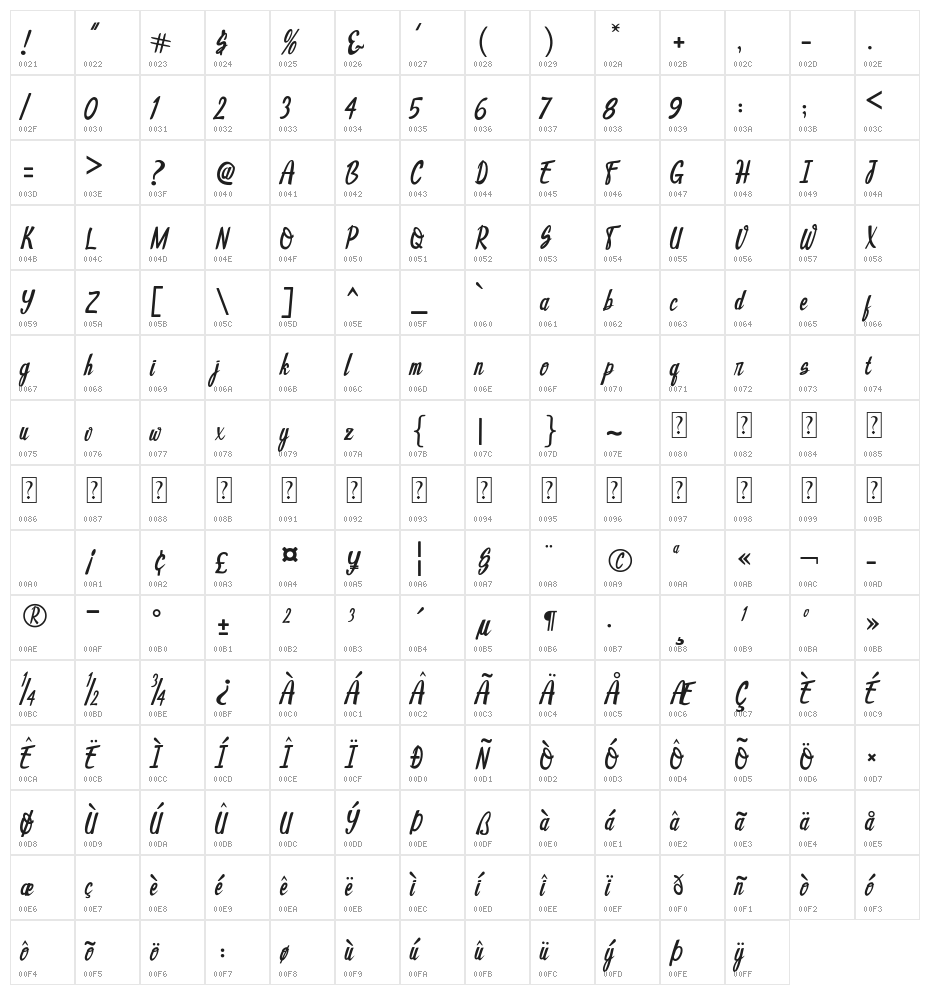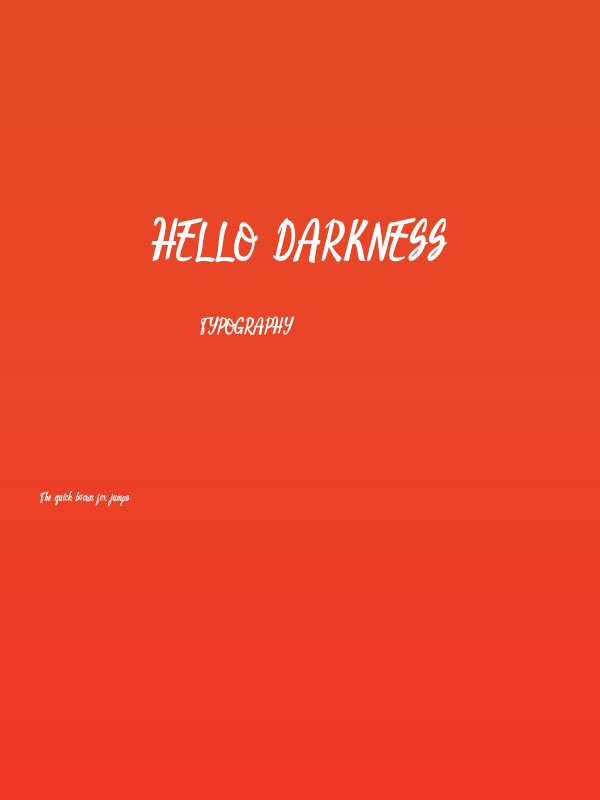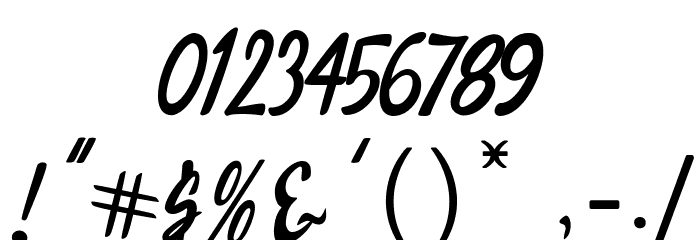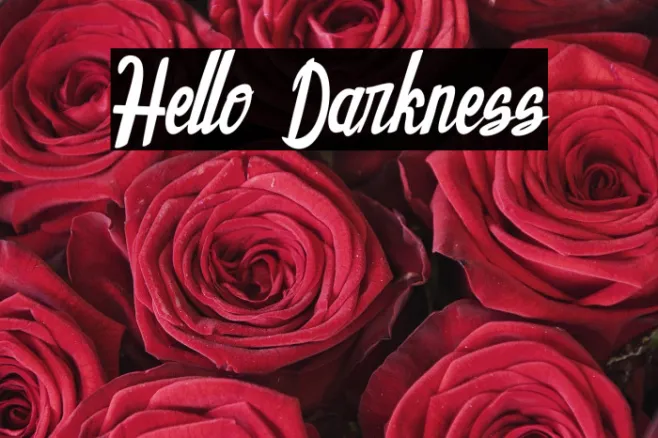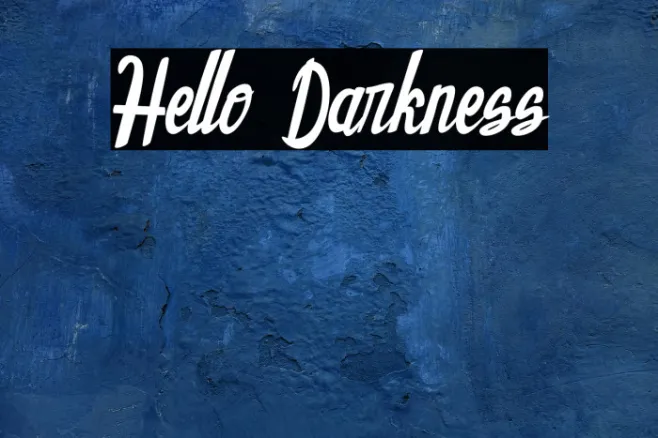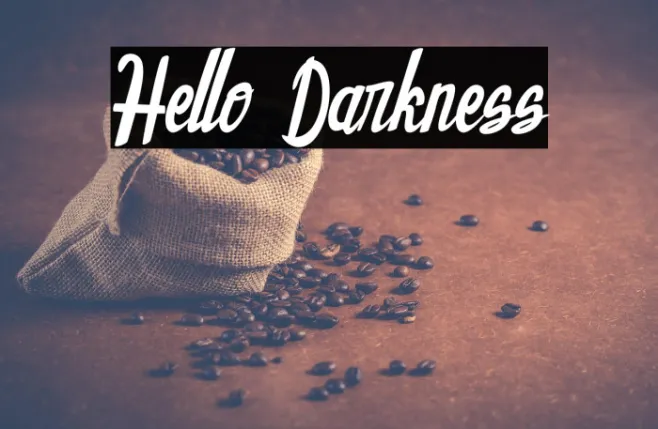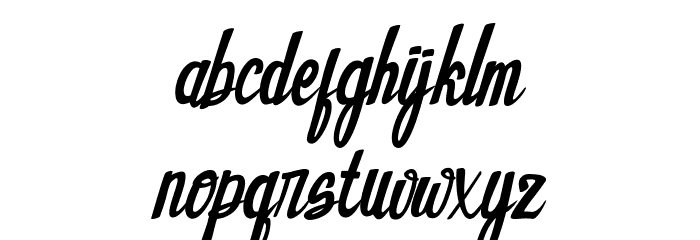
Hello Darkness Font
Hello Darkness Description
This font features a dynamic and flowing script style, characterized by its elegant and cursive letterforms. The uppercase letters are bold and slightly slanted, giving a sense of movement and fluidity. The lowercase letters maintain a consistent style, with smooth curves and connected strokes that enhance the script's cohesive appearance. The numerals are designed to match the overall aesthetic, with a similar slant and boldness. Special characters are included, maintaining the same stylistic approach, ensuring versatility in various design applications. The font's overall appearance is both sophisticated and approachable, making it suitable for a wide range of creative projects.
| Proposed Projects | Ideal for branding, invitations, greeting cards, and elegant packaging designs. |